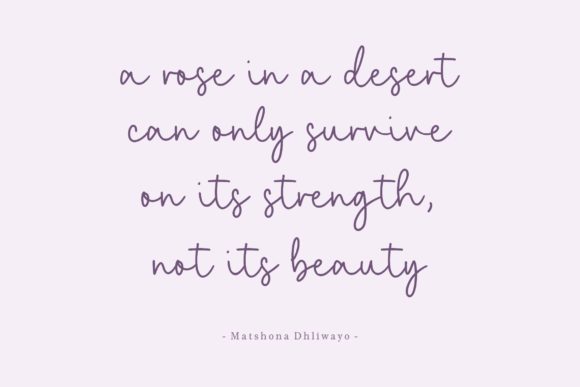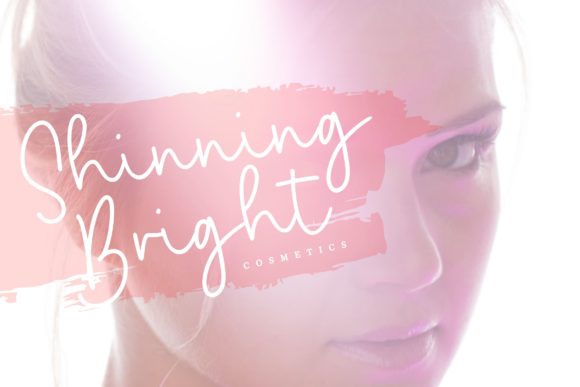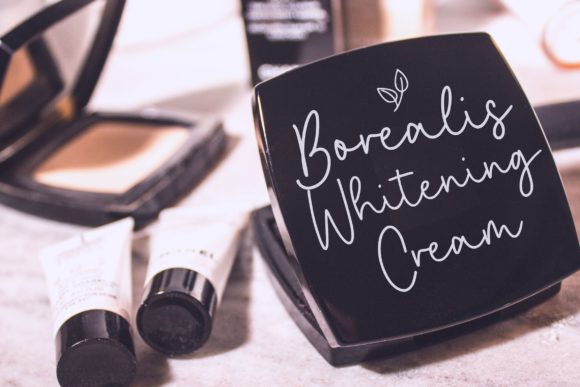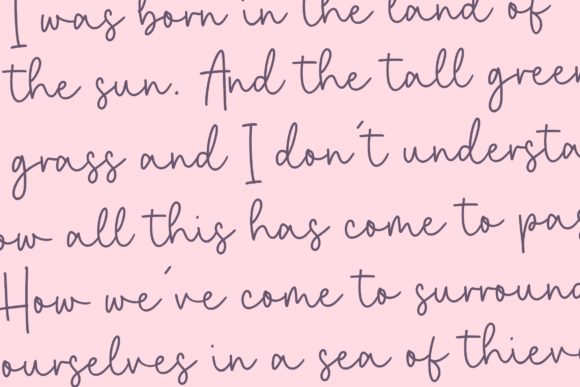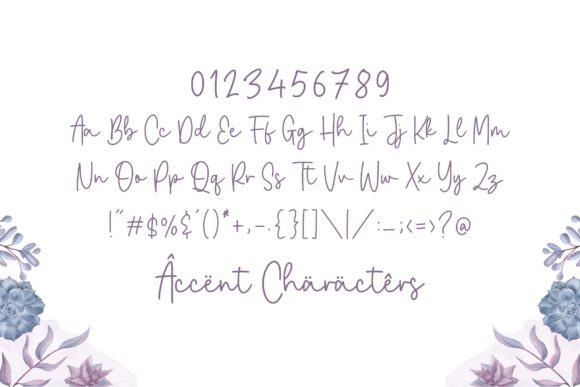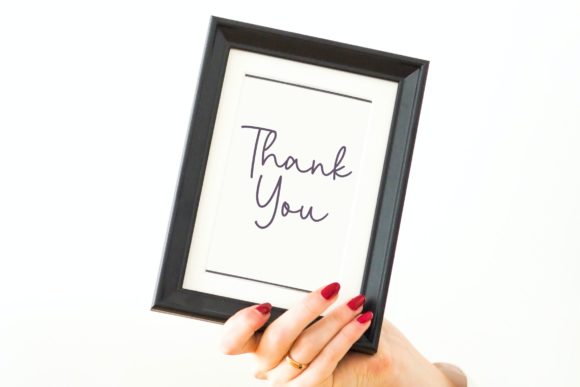
Introduction to Joselyna Font
As you sit down to work on a new creative project, the blank page stares back at you, waiting for inspiration to strike. You’re looking for that perfect font to bring your design to life, something that exudes elegance and charm. And then, it hits you – the perfect font that makes your design shine: Joselyna Font.
This stunning font is a treasure trove of classic style, perfect for creating beautiful wedding invitations, gorgeous stationary art, and eye-catching social media posts. Its authentic feel is sure to make your design stand out from the crowd. Whether you’re a seasoned designer or just starting out, Joselyna Font is a valuable resource that will take your creative projects to the next level.
Key Features of Joselyna Font
- Comes with a transparent background, allowing for versatility in design applications.
- Includes multiple font styles and weights, suitable for various design needs.
- Features a modern and elegant design, making it perfect for a wide range of creative projects.
- Designed to be highly legible, even at small font sizes, ensuring readability in various design applications.
Honest Review: Joselyna Font
As a designer, I’m always on the lookout for high-quality design resources to enhance my creative projects. Recently, I stumbled upon the Joselyna Font, and I’m excited to share my thoughts on it.
- ✨ High-quality typography: The Joselyna Font has a sleek and modern design that’s perfect for a wide range of creative projects.
- ✨ Transparent background: The font has a transparent background, which allows for easy layering and customization in design projects.
- ⚠️ Limited font weights: The Joselyna Font only comes in a few font weights, which may not be ideal for designers who need more versatility.
- ⚠️ Limited language support: The font may not support all languages, which could be a limitation for designers working on multilingual projects.
Overall, I’m impressed with the Joselyna Font, and I think it’s a great addition to any designer’s toolkit. While it may have some limitations, its high-quality design and free download make it an excellent choice for many creative projects.
Joselyna Font is a high-quality, free design resource ideal for creative projects that require a unique and stylish touch.
Tips for Getting the Most Out of Joselyna Font
For optimal results, use Joselyna Font with a transparent background to ensure it blends seamlessly with your design. You can also experiment with different font sizes, colors, and combinations to create a unique look.
Joselyna Font is ideal for creative projects, such as:
Branding and logo design
Infographic creation
Print and digital marketing materials